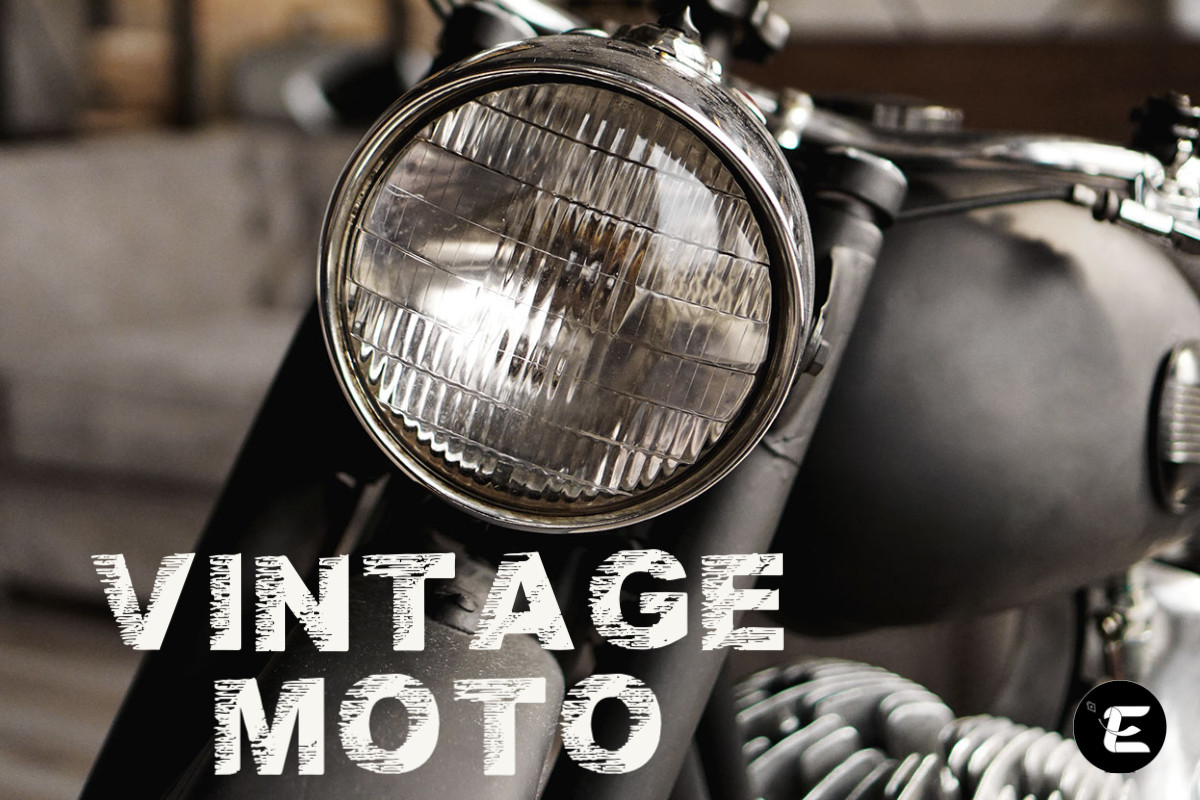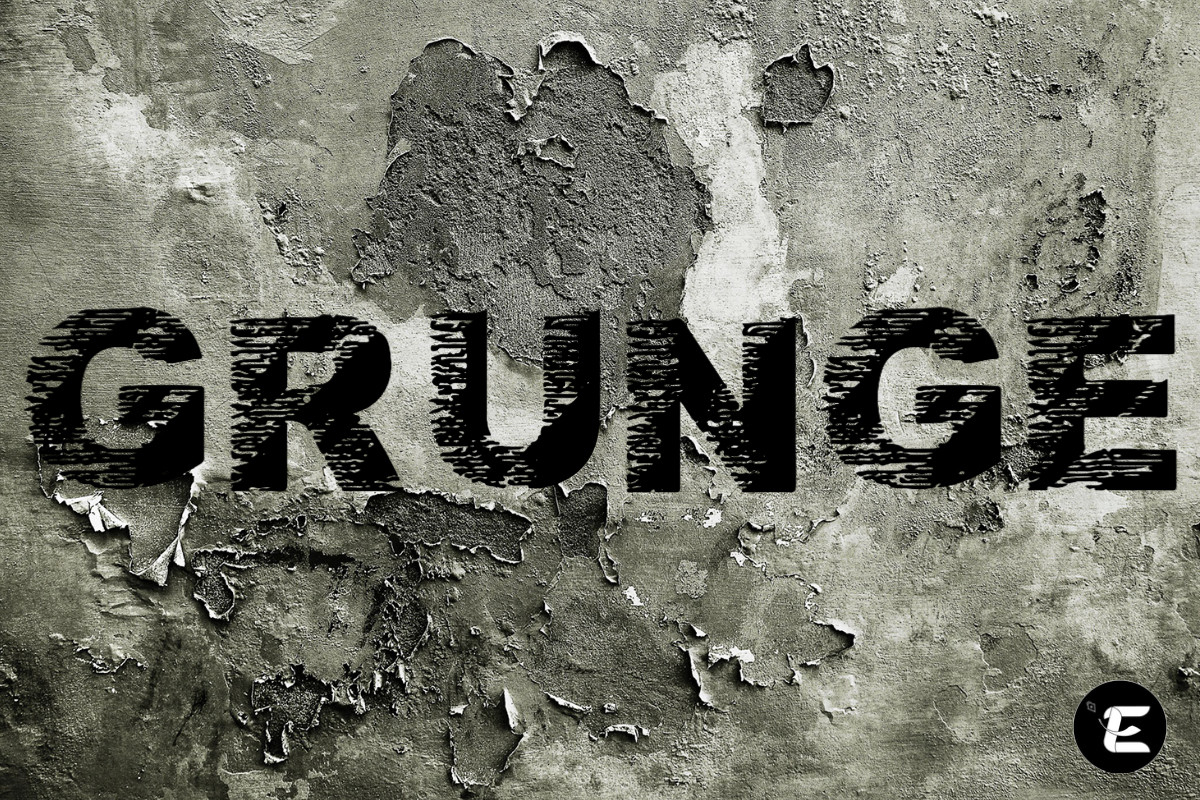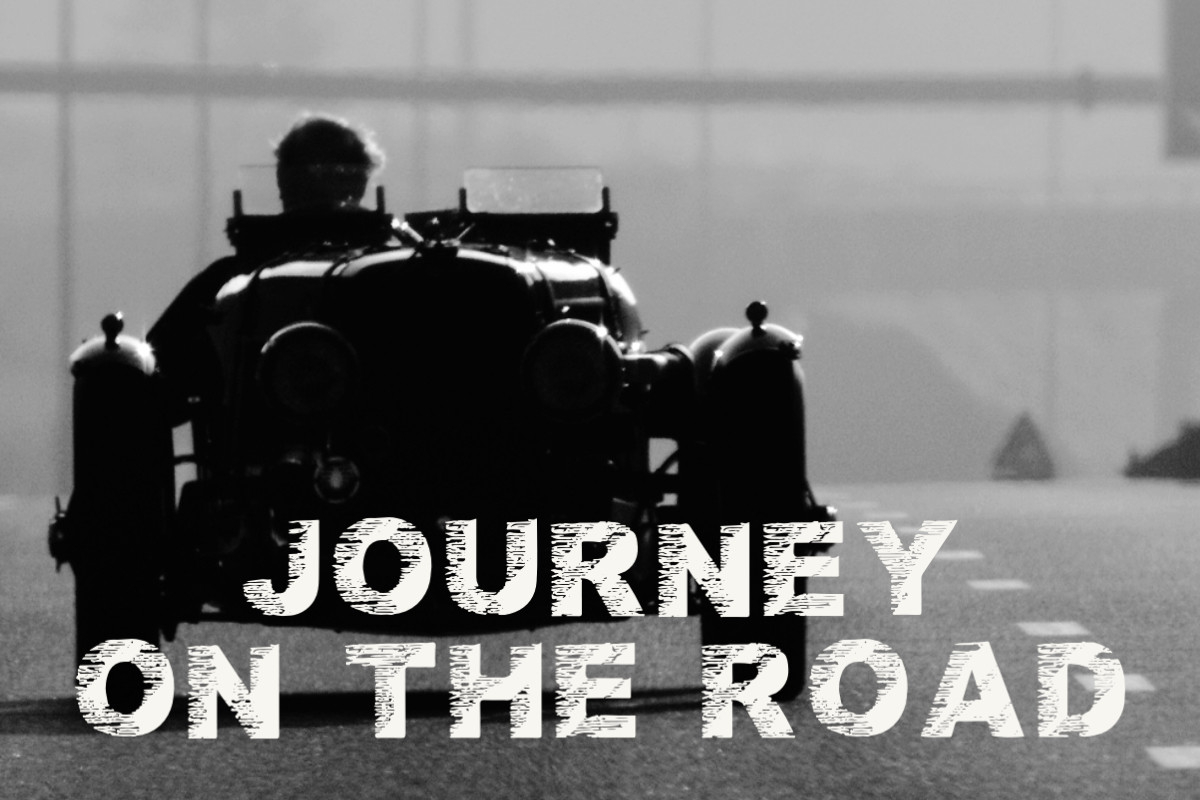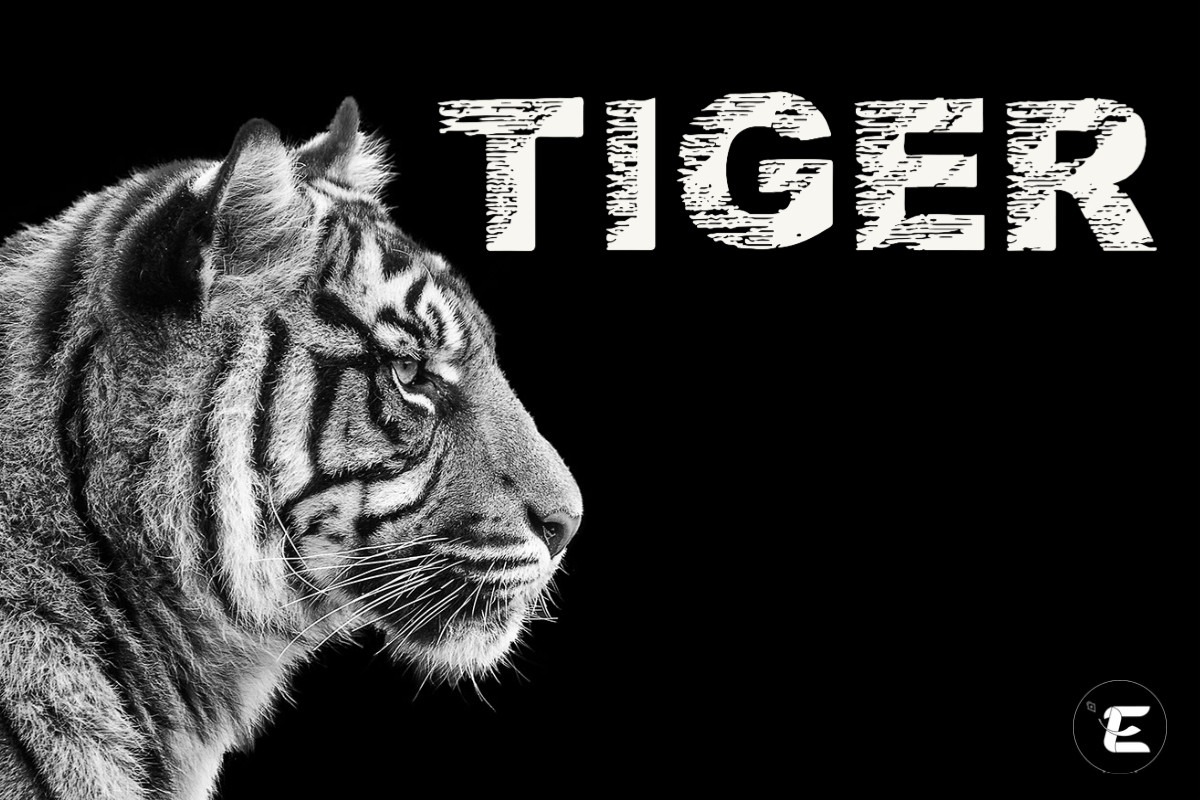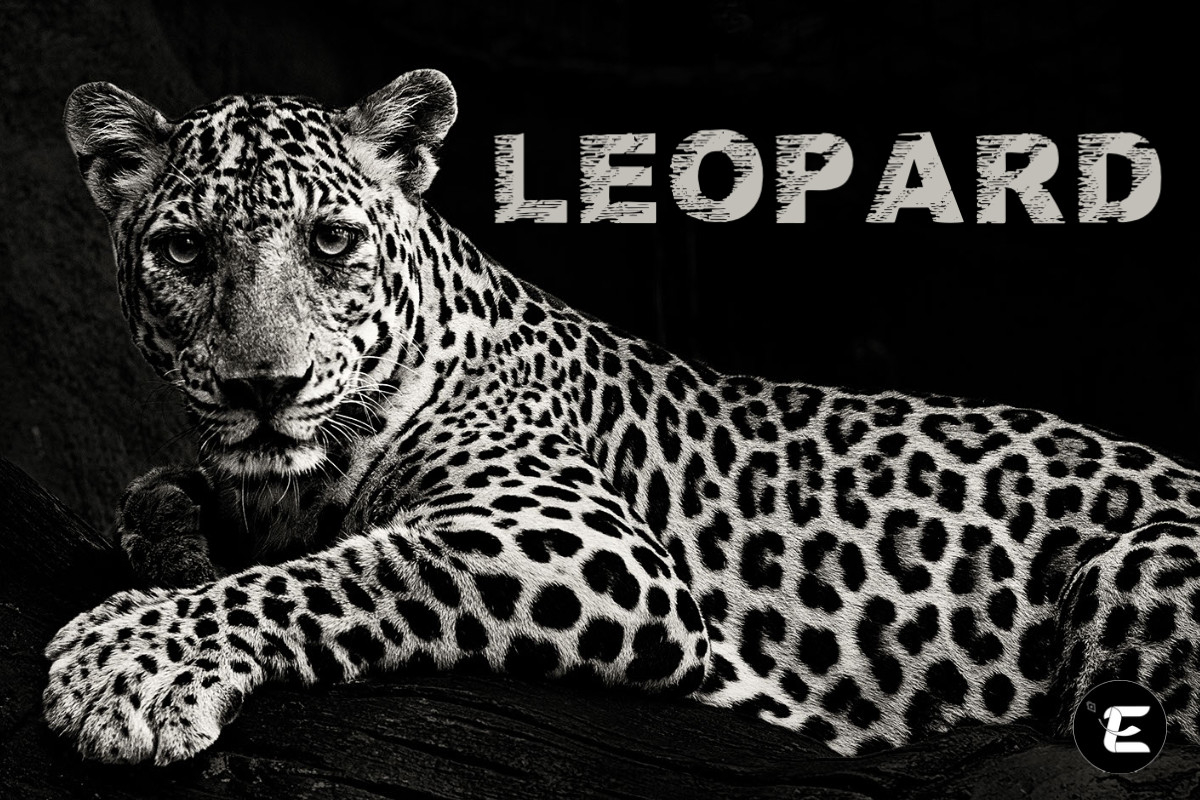
About Vintage Font
Vintage is a cool font that will enhance your designs. Vintage chalkboard font it’s a perfect match for posters, logo design, style quotes, fashion, magazines, and lots more.